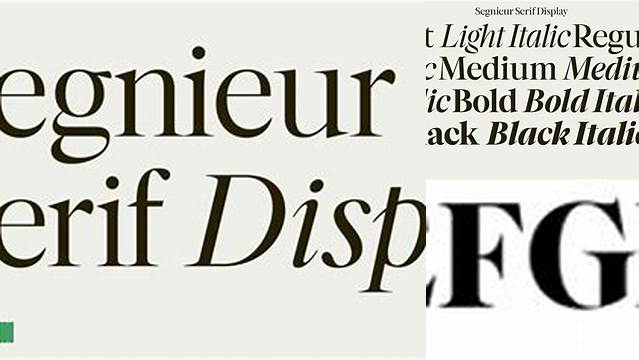
Hey guys! If you're on the hunt for a sleek and stylish font to elevate your design projects, look no further! The Segnieur Serif Display Black Font is a fantastic choice. And the best part? You can snag it for FREE! This article is your ultimate guide to everything you need to know about this awesome font, from where to download it securely to how to use it effectively. We'll dive into its characteristics, explore its best applications, and even offer some tips and tricks to make your designs pop. So, grab your coffee, settle in, and let's get started on this font-tastic journey!
Segnieur Serif Font: A Detailed Overview
Alright, let's kick things off with a deep dive into what makes the Segnieur Serif Display Black Font so special. This font belongs to the serif family, meaning it features those elegant little strokes – or serifs – at the ends of its letterforms. It's a display font, which means it's designed to make a statement and is ideal for headlines, titles, and any text that needs to grab attention. The "Black" in its name indicates its weight, signifying that it's a bold and striking font. This combination of serif, display, and black weight gives the font a powerful and sophisticated presence.
The Segnieur Serif Display Black Font offers a unique blend of classic elegance and modern boldness. Its clean lines and well-defined serifs provide a touch of sophistication, while its heavy weight ensures that it demands attention. This makes it a versatile choice for a wide range of design projects, from branding and marketing materials to editorial layouts and website designs. Think about it: the right font can completely transform the look and feel of your project. The Segnieur Serif Display Black Font is perfect for making your project stand out from the crowd. The careful crafting of each letter makes it a pleasure to read, and its high contrast makes it easy to read in various contexts. Whether you're designing a logo, creating a poster, or crafting a website headline, this font can help you achieve a professional and polished look. And when you can get this quality for free, it’s a total win-win. So, let's see how we can get this font!
Key Characteristics of Segnieur Serif
- Serif Style: Featuring those classic serifs, adding a touch of elegance and tradition.
- Display Font: Designed for impact, perfect for headlines and titles.
- Black Weight: Bold and eye-catching, ensuring high visibility.
- Modern & Classic: Combines contemporary design with timeless serif elements.
- Versatile Use: Ideal for branding, editorial, and web design.
Segnieur Serif Font in Action: Best Use Cases
Now, let's explore where the Segnieur Serif Display Black Font truly shines. Its bold presence and elegant serifs make it ideal for projects that need to make a strong visual impact. Here are some of the best use cases:
- Headlines and Titles: The font's bold weight and display style make it perfect for grabbing attention in headlines, website titles, and magazine covers. You want something that will instantly tell the audience what your content is about. Think of it as the first handshake for your message. The strong serifs and defined letterforms will make your headlines pop.
- Logos and Branding: Its sophisticated design makes it a great choice for creating logos and branding materials. It gives off a professional and trustworthy impression. It is great for businesses that are looking for a modern yet classic image. When you have a strong font, it represents a solid foundation for a brand identity. With a font like Segnieur Serif, you're not just choosing a typeface; you are also making a statement about your brand's values.